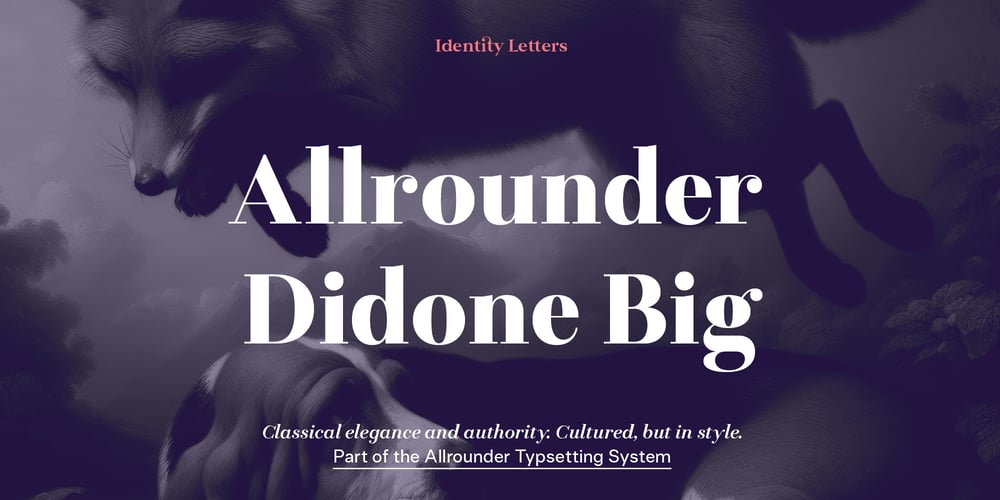
Allrounder Didone Big Font Family was designed by Moritz Kleinsorge and published by Identity Letters. Allrounder Didone Big contains 12 styles and family package options. Allrounder Didone is a refined modern/classicist serif typeface from the Allrounder superfamily especially suited to fashion and culture as well as legal and scientific topics. Like the original designs by 18th/19th-century masters such as Didot, Bodoni, and Walbaum, Allrounder Didone comes in optical sizes, each with 12 styles and ~950 glyphs per font. The classic “Allrounder Didone” family is great for all-purpose typesetting even in small captions. In larger sizes, it makes headlines appear strong and confident. For the true high-contrast Didone look, we added “Allrounder Didone Big”. They can be employed solo, together, or combined with any other font from the Allrounder type system.